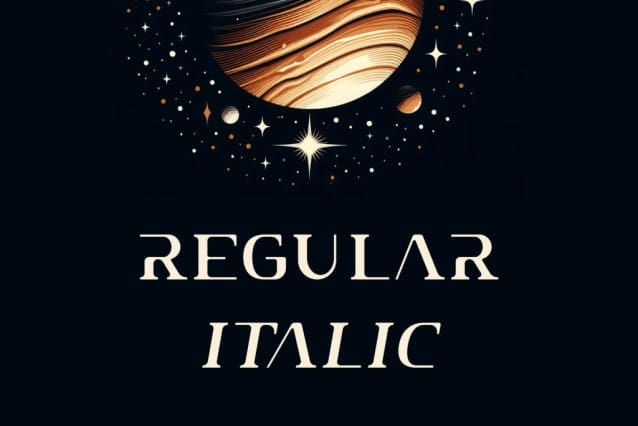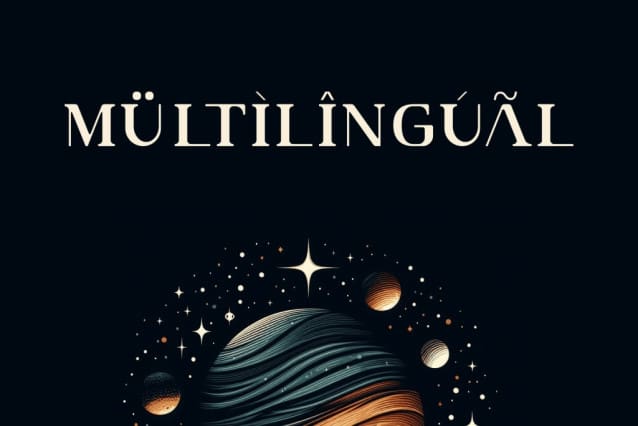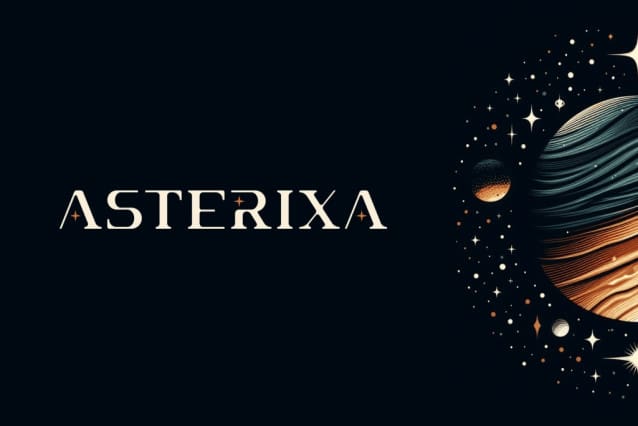
Asterixa Font
Asterixa Font is a modern serif font designed for display use. This uppercase font exudes an elegant and powerful aesthetic with a classic touch refined for the contemporary era. With Asterixa, you’ll discover a distinctive and graceful presence, making it the perfect choice for design projects that demand a blend of classic beauty and modern appeal.